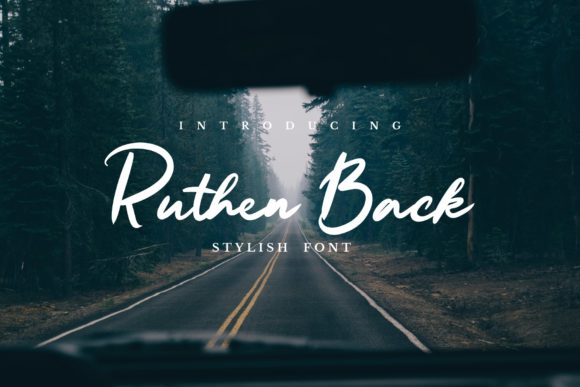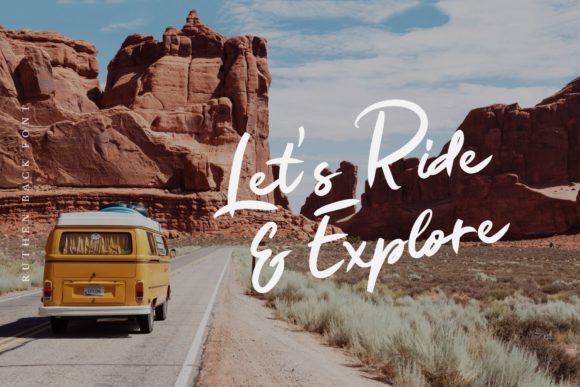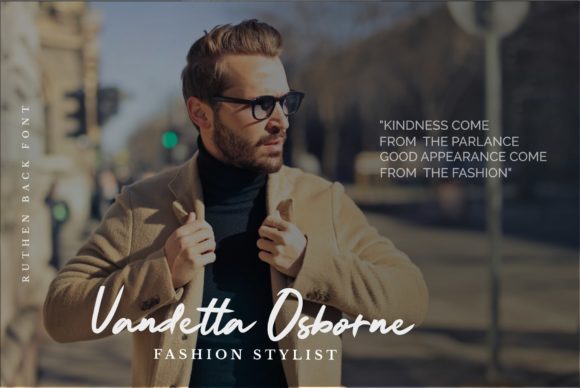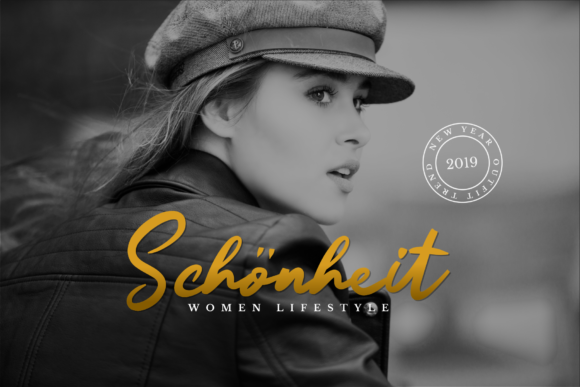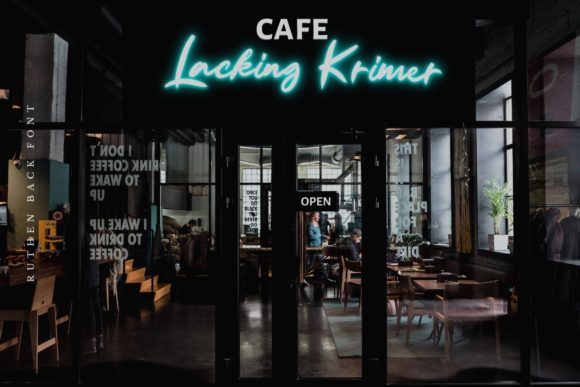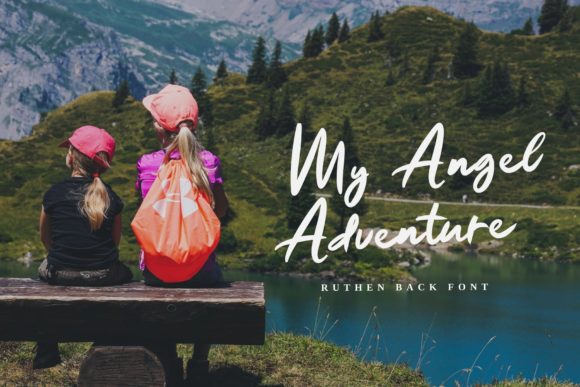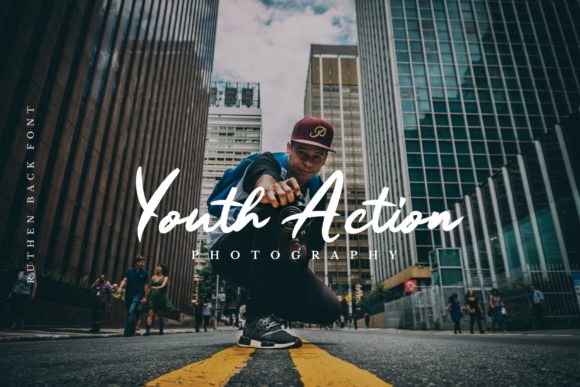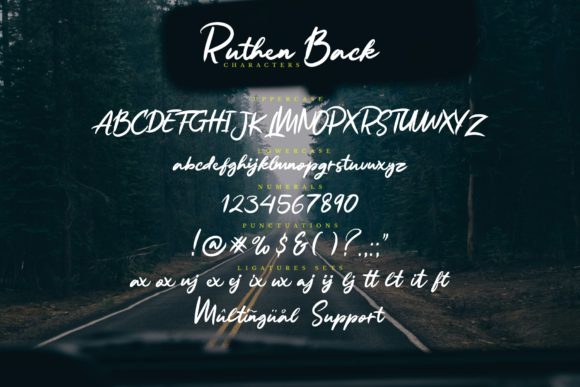
Ruthen Back Font
About Ruthen Back Font
The Ruthen Back is a beautiful signature font. It’s catchy and elegant and will add a personal touch to your designs.
It’s perfect for greeting cards, titles, book covers, magazines, posters, neon lights, logos, and much more!